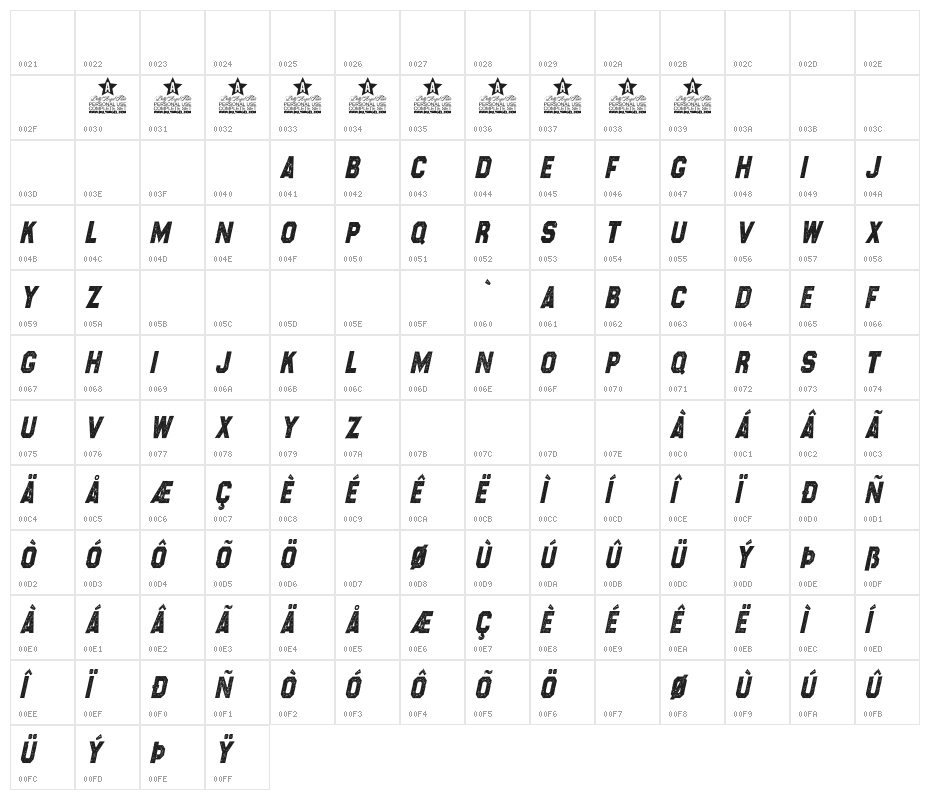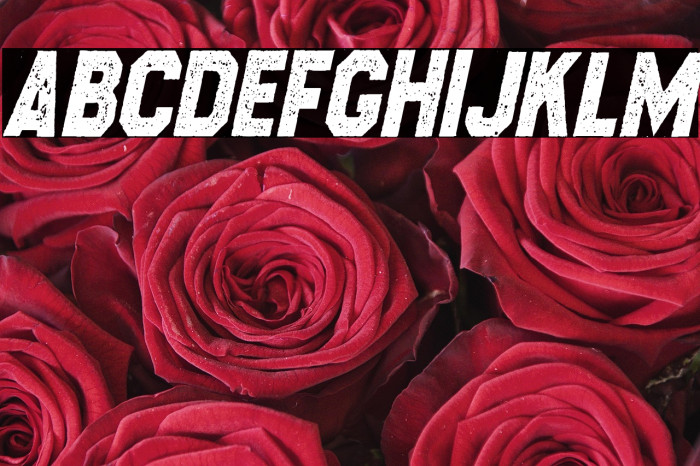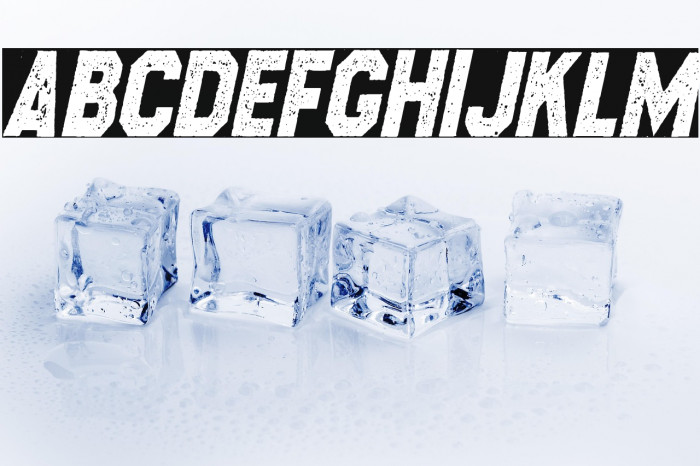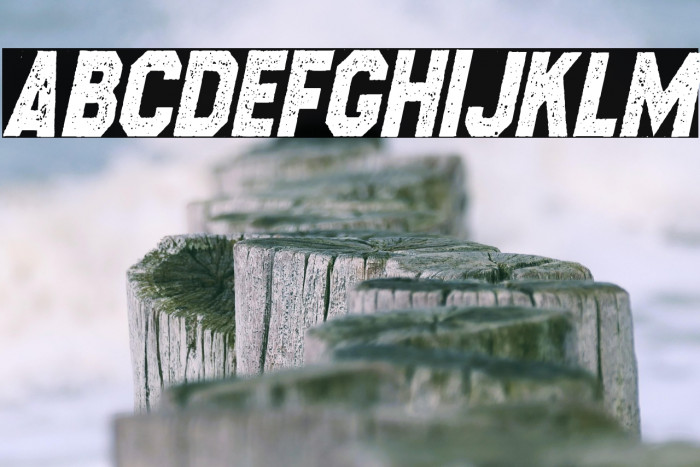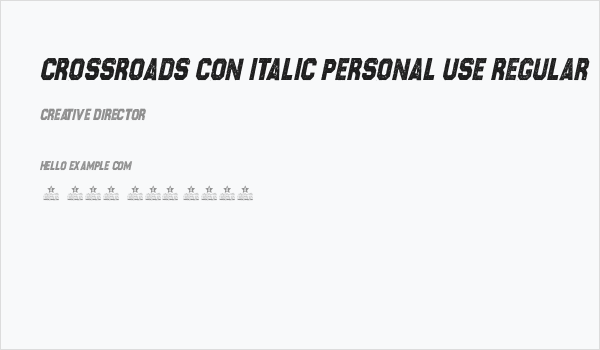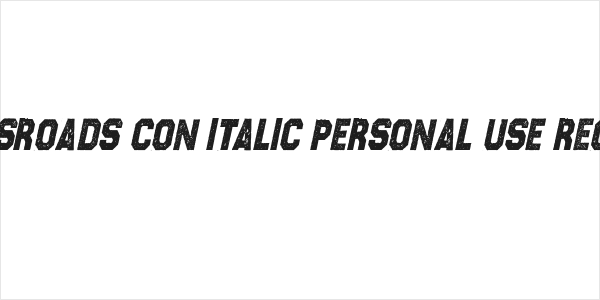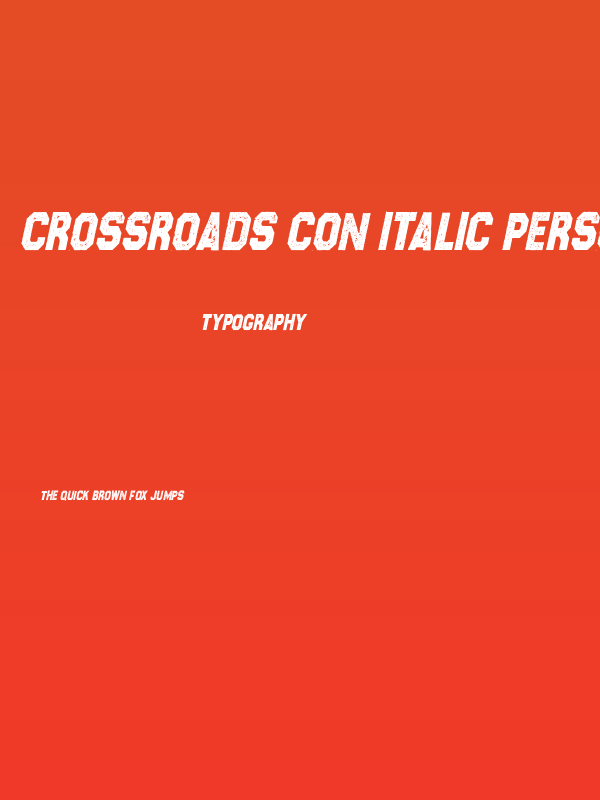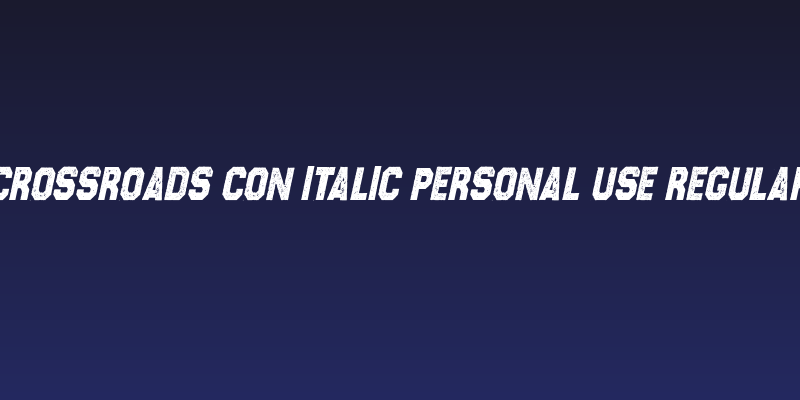
This font features a bold, italicized style with a distinct distressed texture, giving it a rugged and vintage appearance. The uppercase letters are angular and slightly condensed, with a consistent slant that adds dynamism and movement. The texture within each character mimics a worn or weathered look, making it ideal for projects that require a retro or industrial feel. The font's boldness ensures high visibility, while the italic slant adds a touch of elegance and flair. The characters are tightly spaced, enhancing the compact and impactful nature of the design.
| Proposed Projects | Ideal for posters, logos, branding, and any design needing a vintage or industrial touch. |